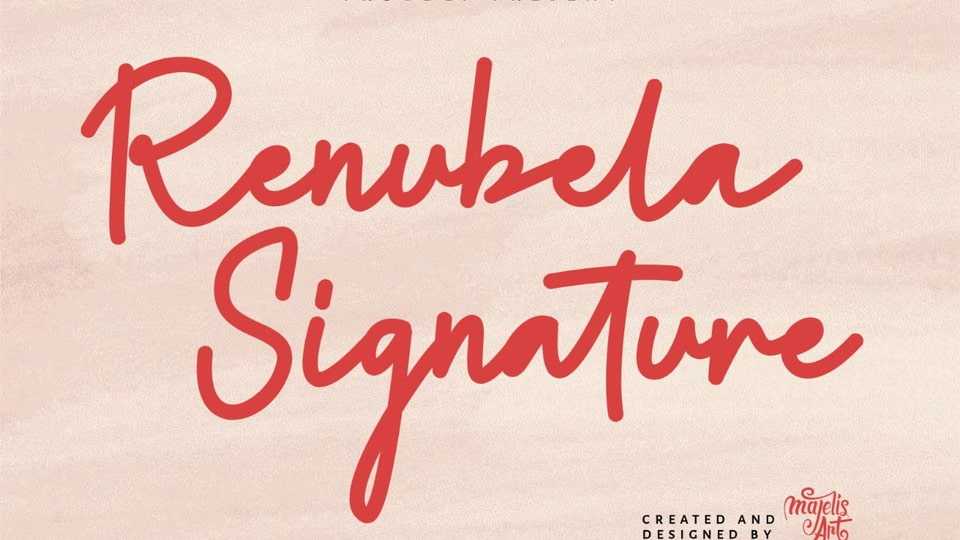
Download Renubela font, a script created using a bold marker with smooth, bold curves, combined with subtle hand-carved details that resemble human handwriting in a signature style.
Designer: Fikhry Mus Pratama